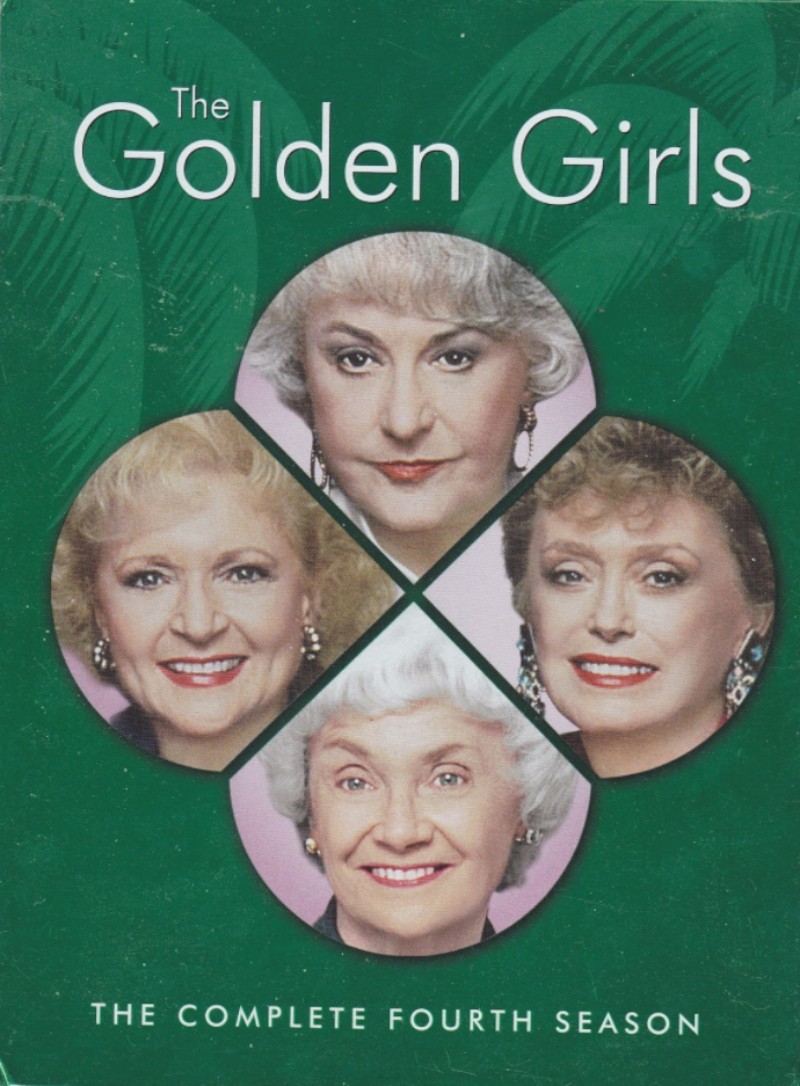
The Golden Girls Font
ComedyThe Golden Girls is a popular American sitcom that originally aired from 1985 to 1992. The show follows the lives of four older women who share a home in Miami, Florida.
The title on the cover of "The Golden Girls" is presented in a geometric sans-serif font known as Futura Light, designed by Paul Renner and released in 1927. The font used in the opening sequence title is similar to Zapf Chancery Medium Italic and Monotype Corsiva.
The Opening Title